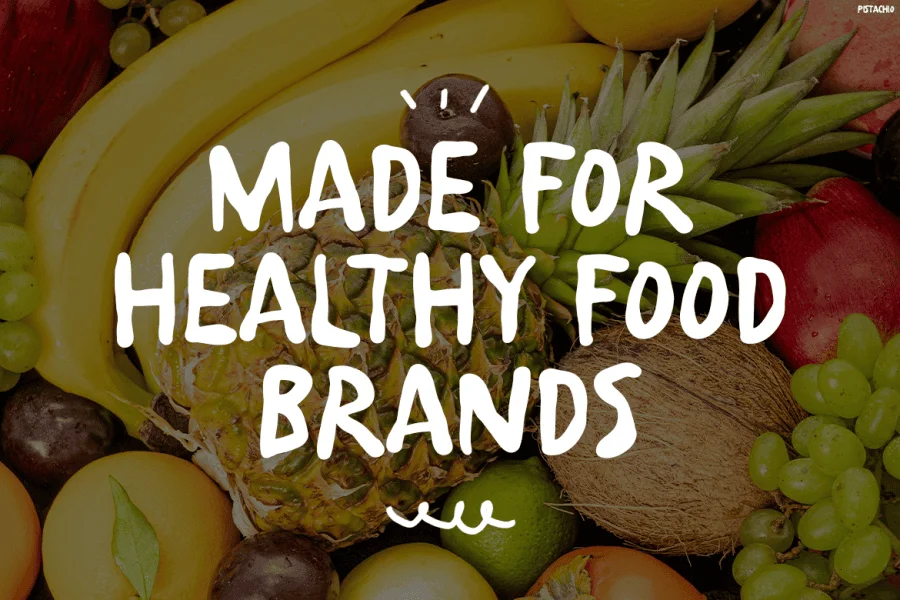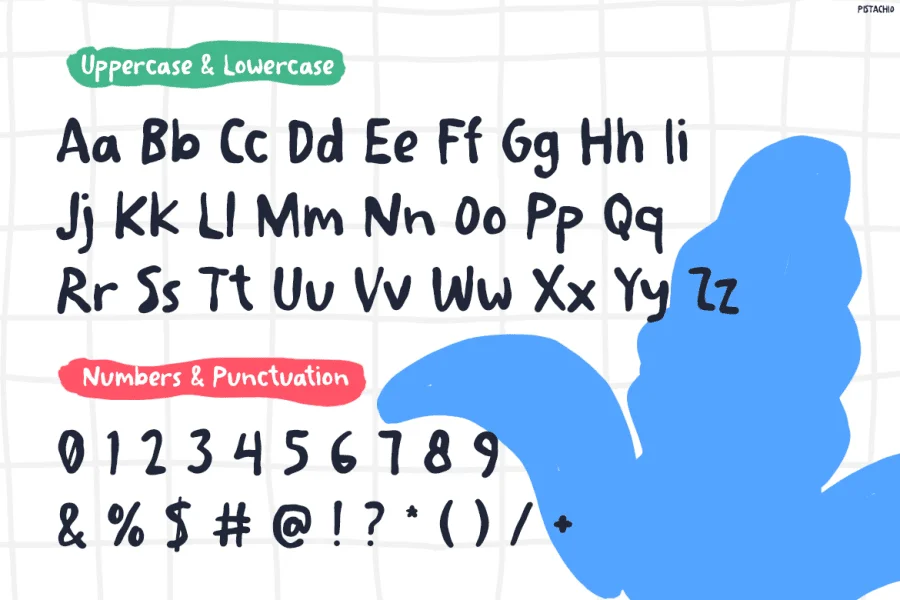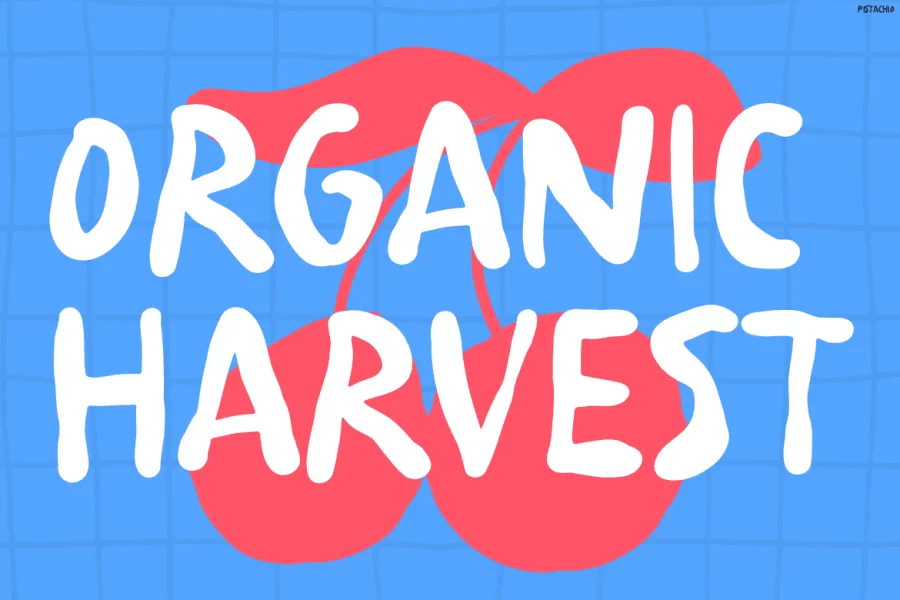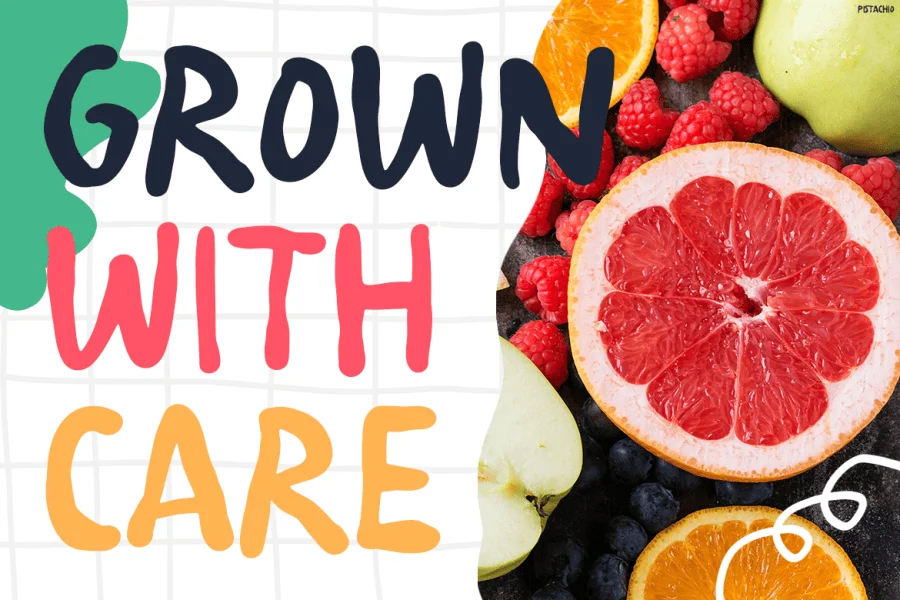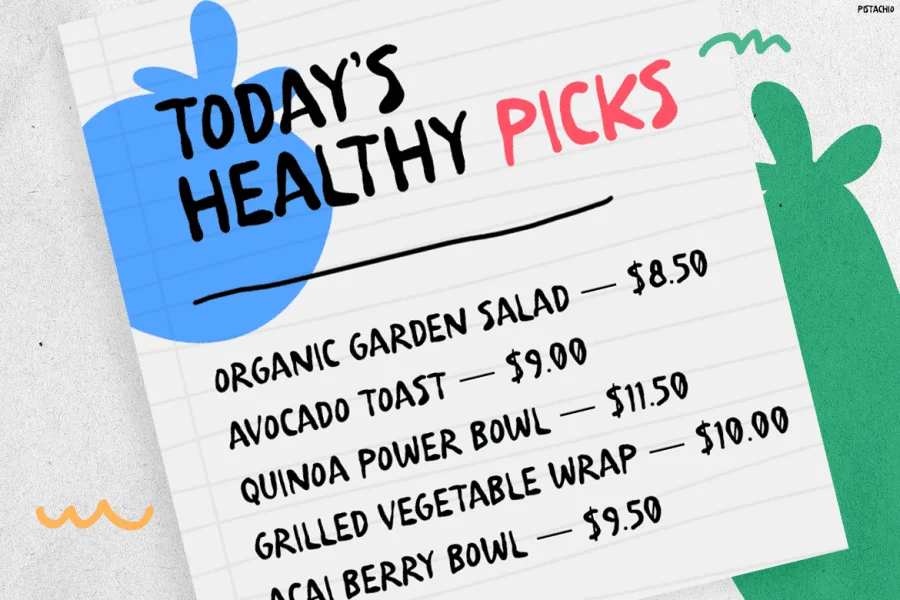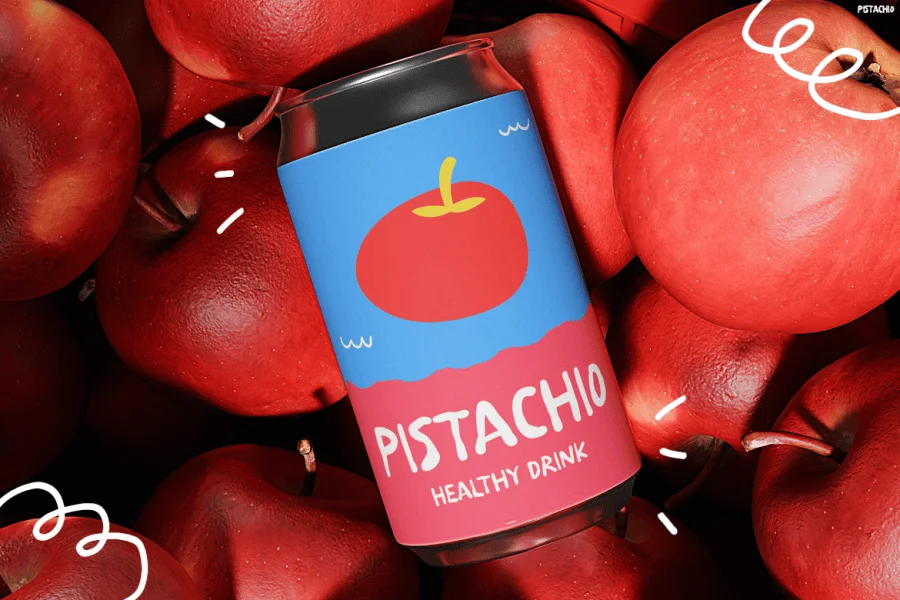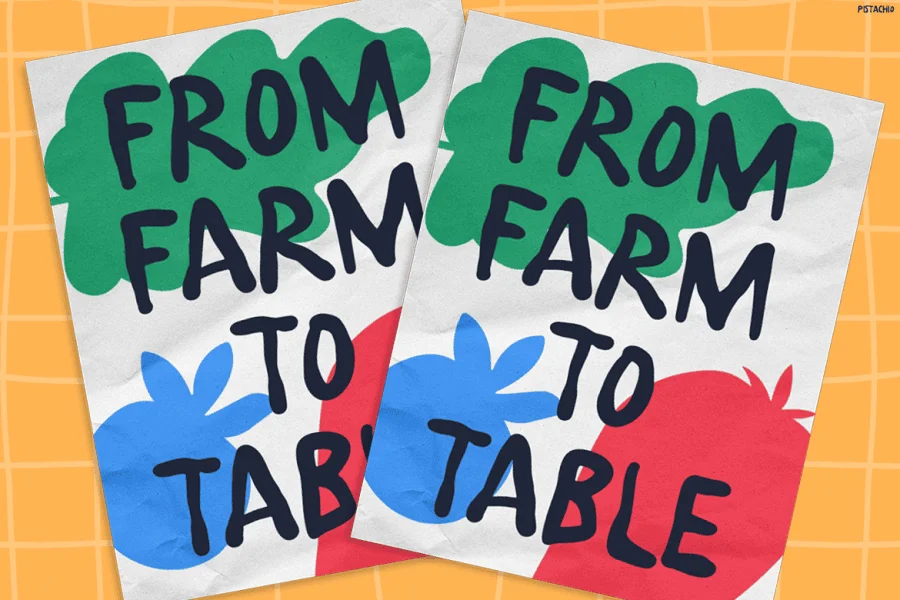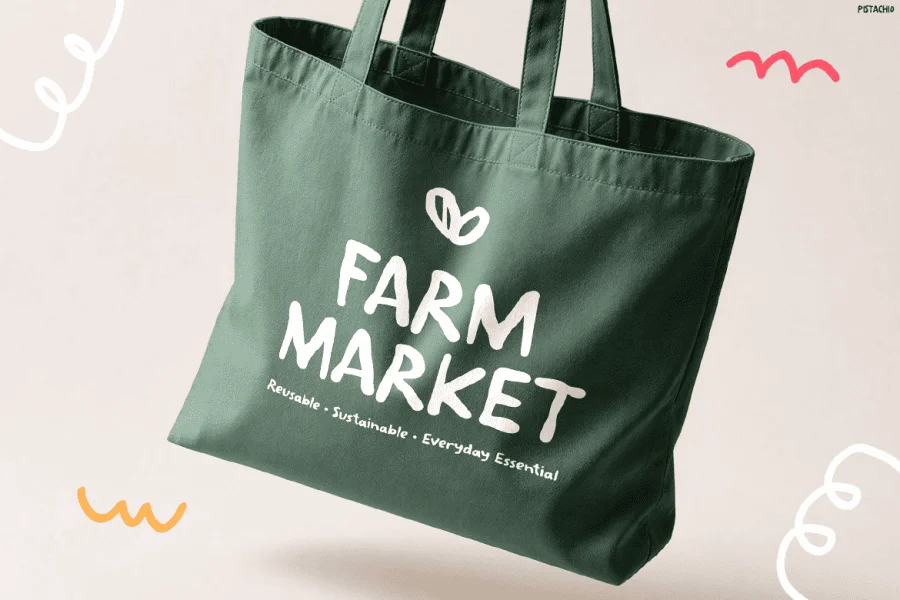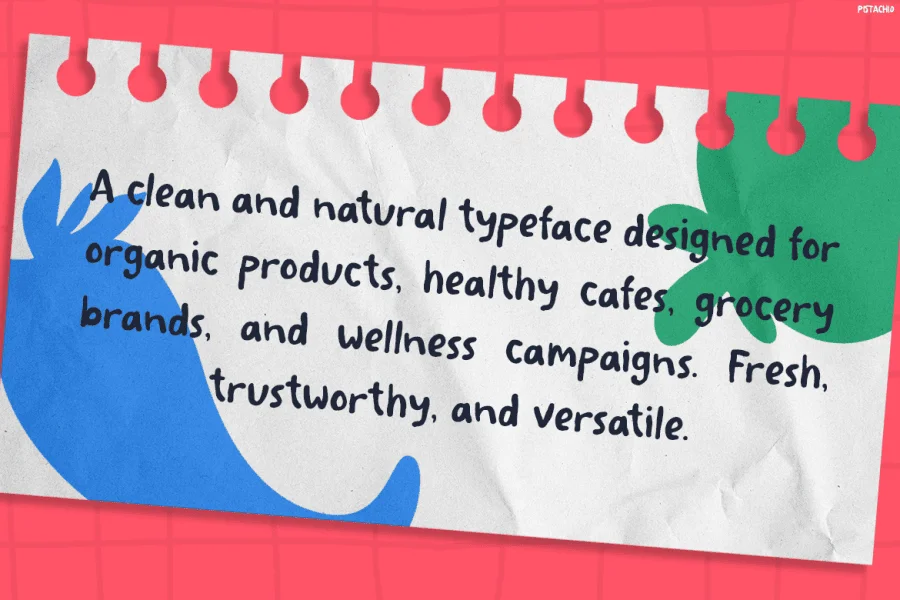
Pistachio is a playful, hand-drawn sans-serif typeface characterized by its soft, rounded terminals and organic, low-contrast stroke transitions. The letterforms exhibit a casual, hand-lettered rhythm with slightly irregular, bouncing heights and soft, blunt edges that evoke an approachable, human touch. Its medium-to-bold weight gives it a friendly, solid presence on the page, while the loose, slightly condensed proportions of the characters maintain a lively, energetic texture.
This typeface is exceptionally suited for casual branding, organic food packaging, farmer's market signage, and healthy food products. Its warm, informal personality translates beautifully to cafe menus, promotional posters, and editorial layouts that require a welcoming, hand-crafted aesthetic.